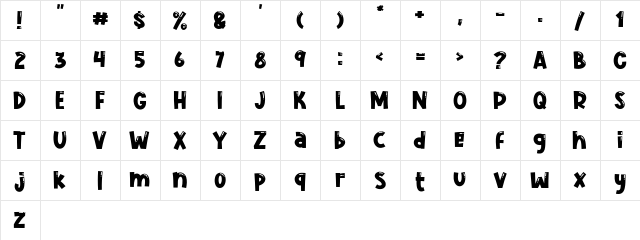
Cute Jellyfish Regular
| Foundry | Khurasan |
| Designer | Khurasan |
Design Context for Cute Jellyfish Typeface
Cute Jellyfish is a composed and adaptable typeface that performs quietly and consistently across a wide range of design contexts.